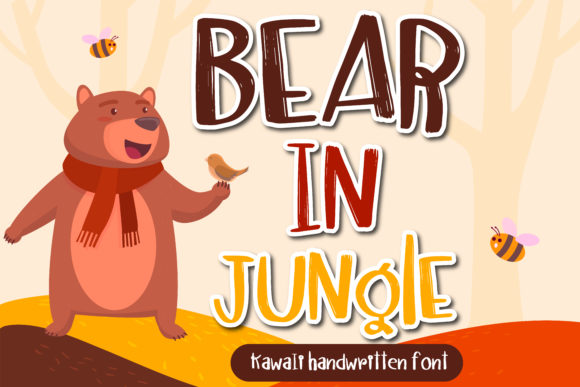
Bear in Jungle Font for Bold Editorial Design
When selecting typography for digital publications, Bear in Jungle stands out as a bold and colorful handwritten font that brings immediate personality to editorial layouts. As content creators and publishers know, the right typeface does more than display text; it establishes tone before a single word is read. This specific Script Handwritten style offers a friendly feel that makes it incredibly versatile, fitting a wide range of contexts from lifestyle blogging to educational ebooks. When you add Bear in Jungle to your creative ideas, notice how it makes static pages feel dynamic and approachable, transforming standard articles into visually engaging experiences that retain reader attention.
Bear in Jungle for Blog Headers and Article Titles
Integrating Bear in Jungle into blog headers allows publishers to break away from sterile web typography while maintaining professional readability. In the crowded space of content marketing and independent publishing, Fonts like this serve as visual hooks that signal creativity and warmth to visitors. Because Bear in Jungle is a bold and colorful handwritten font, it performs exceptionally well at large sizes where thinner scripts might disappear against complex backgrounds or busy hero images. Its substantial weight ensures that headlines remain legible on mobile devices, which is critical for modern SEO and user experience metrics.
For editorial designers managing high-volume blogs, consistency is key to brand recognition. Using this Script Handwritten typeface for category tags, featured post titles, or newsletter subject lines creates a cohesive visual thread across disparate content pieces. The friendly feel makes it incredibly versatile for niches such as parenting, travel, food, and personal development, where an overly formal serif might feel distant and a generic sans serif might lack character. By anchoring your article hierarchy with Bear in Jungle, you guide the reader’s eye naturally from the headline into the body copy, improving dwell time and engagement rates.
Optimizing Readability in Digital Magazine Layouts
Digital magazine designers utilizing Bear in Jungle will find its bold structure ideal for distinguishing feature stories from standard news updates within a grid layout. Unlike delicate calligraphy fonts that require excessive white space, this display font holds its own alongside photography and dense text blocks. It functions best as a primary heading or accent element rather than body text, ensuring that the reading experience remains smooth and accessible. When designing for screens, always test Bear in Jungle against various background colors to ensure sufficient contrast, preserving both aesthetic appeal and WCAG accessibility standards.
Bear in Jungle for Ebook Covers and Chapter Openers
Authors and self-publishers choosing Bear in Jungle for ebook covers gain a competitive edge through typography that communicates genre and mood instantly. In digital marketplaces where thumbnails are small, the bold strokes of this handwritten font remain distinct and decipherable, unlike finer scripts that blur at low resolutions. Its friendly feel makes it incredibly versatile for genres like memoir, self-help, children’s literature, and creative non-fiction, where the author’s voice needs to feel personal and inviting. Add it to your cover design concepts and notice how it makes the title pop against illustrated or photographic backgrounds without requiring heavy drop shadows or outlines.
Inside the ebook, Bear in Jungle serves as an excellent tool for pacing and navigation when used for chapter openers or section breaks. Readers often skim digital books, and distinctive Script Handwritten headings act as visual landmarks that help them orient themselves within the content. This typographic variation prevents fatigue during long reading sessions by introducing moments of visual delight. For printable guides and workbooks, the font’s handcrafted texture translates beautifully to paper, giving digital downloads a tangible, artisanal quality that increases perceived value and encourages users to complete exercises or worksheets.
Bear in Jungle for Newsletter Graphics and Social Media
Email marketers and social media managers leveraging Bear in Jungle can significantly boost click-through rates by creating custom graphics that stand out in crowded feeds. Standard system fonts in email clients often render inconsistently, but using this Script Handwritten typeface as an embedded image guarantees your branding looks identical across Gmail, Outlook, and Apple Mail. Its friendly feel makes it incredibly versatile for promotional banners, quote cards, and announcement graphics where emotional connection drives action. When designing Instagram carousels or Pinterest pins, the bold weight of Bear in Jungle ensures text remains readable even when overlaid on textured or patterned backgrounds.
Content creators should view Bear in Jungle as a strategic asset for building visual identity beyond just aesthetics. Consistent use of this font in newsletters and social posts reinforces brand recall, making your content instantly recognizable to followers. It pairs particularly well with minimalist photography or flat-lay compositions, adding a layer of human touch to polished digital imagery. For creators selling digital products or courses, using this handwritten font in marketing materials signals authenticity and approachability, helping to bridge the gap between creator and audience in an increasingly automated digital landscape.
Pairing Bear in Jungle with Body Copy Fonts
Editorial designers working with Bear in Jungle must carefully select complementary body fonts to maintain balance and legibility throughout long-form content. Because Bear in Jungle is a bold and colorful handwritten font with significant visual weight, it demands a clean, neutral partner for extended reading passages. A geometric sans serif or a highly readable serif font provides necessary contrast, allowing the display typeface to shine without overwhelming the page. Avoid pairing it with other decorative or script fonts, as this creates visual competition that confuses hierarchy and reduces comprehension speed.
Ultimately, successful typography in publishing is about serving the reader while expressing brand identity. Bear in Jungle offers a unique solution for creators who need their content to feel human, vibrant, and professionally crafted. Whether applied to a wedding guide, a coaching workbook, or a daily blog, its versatility supports diverse editorial goals without sacrificing clarity. By understanding its strengths in hierarchy, pairing, and platform-specific application, publishers can transform ordinary text into compelling visual narratives that resonate deeply with their target audience.